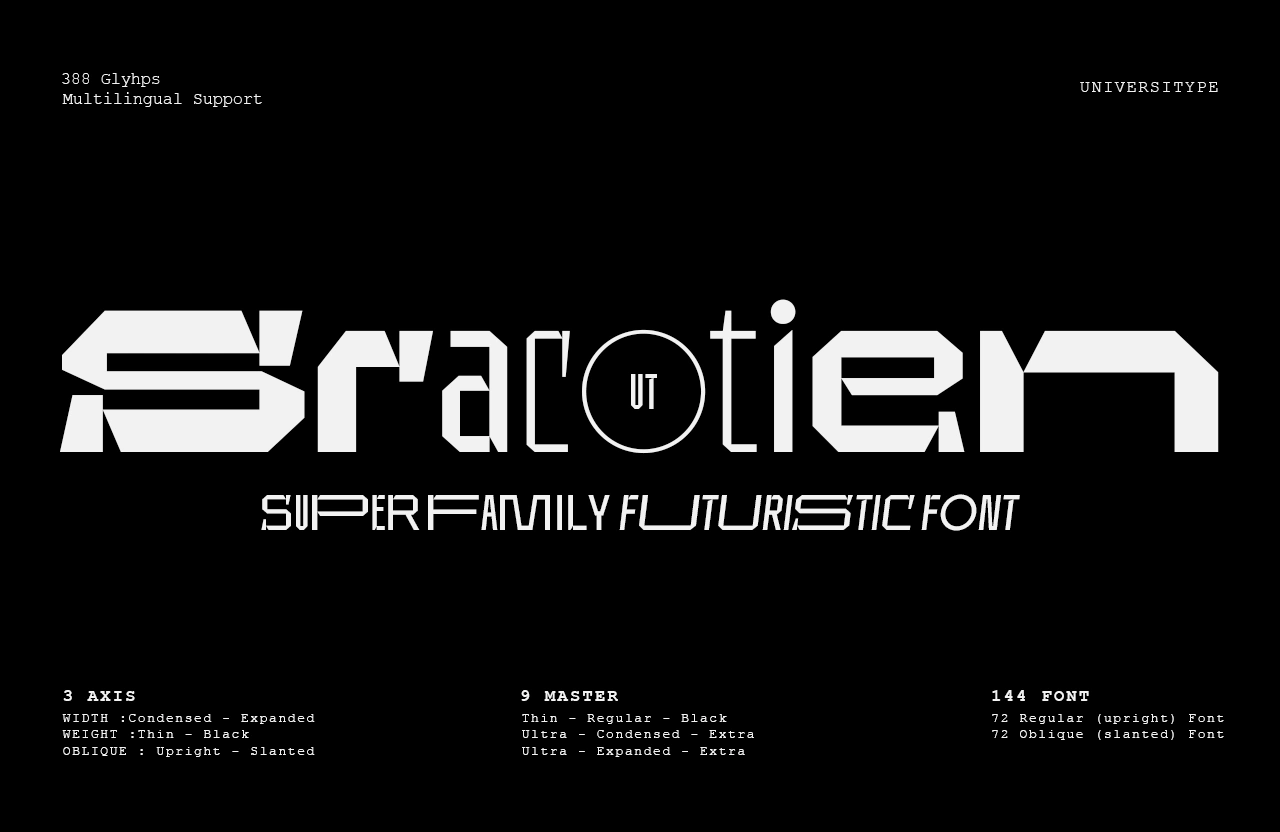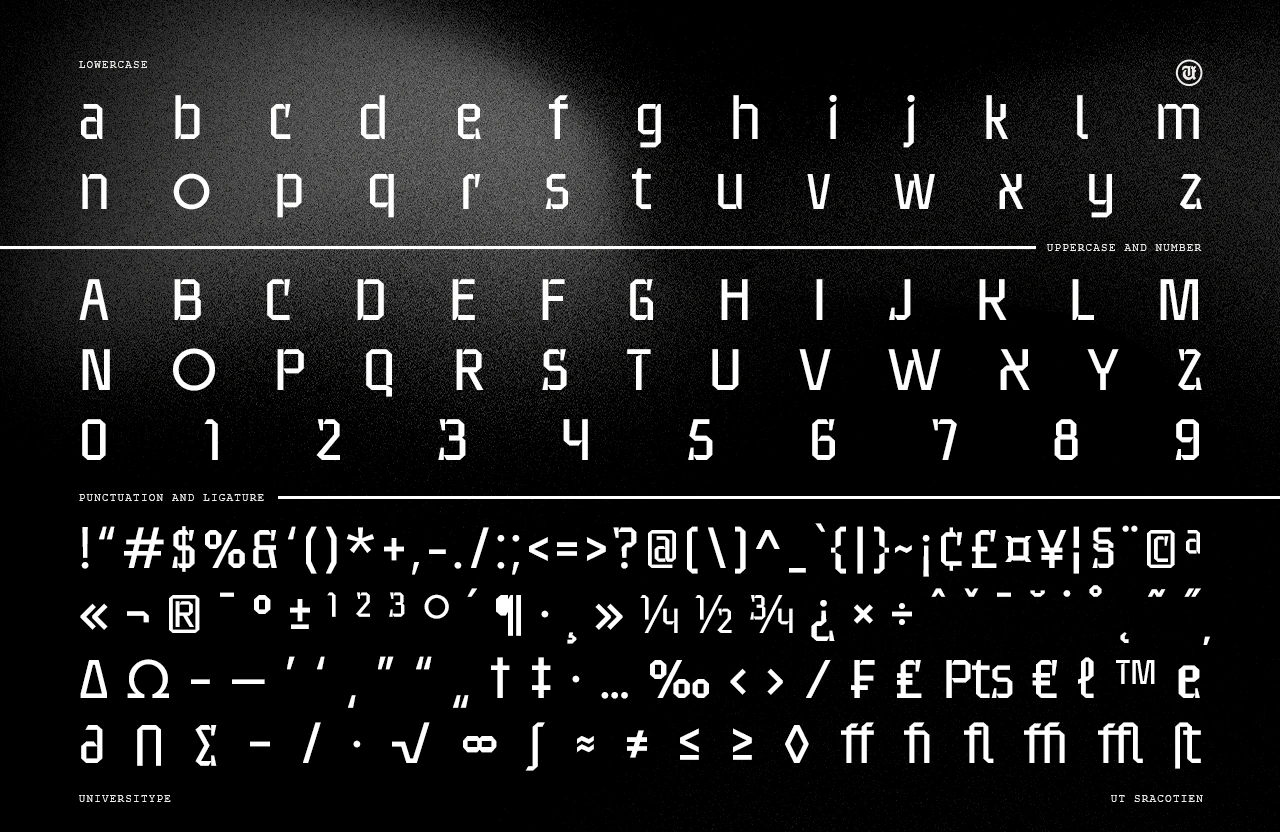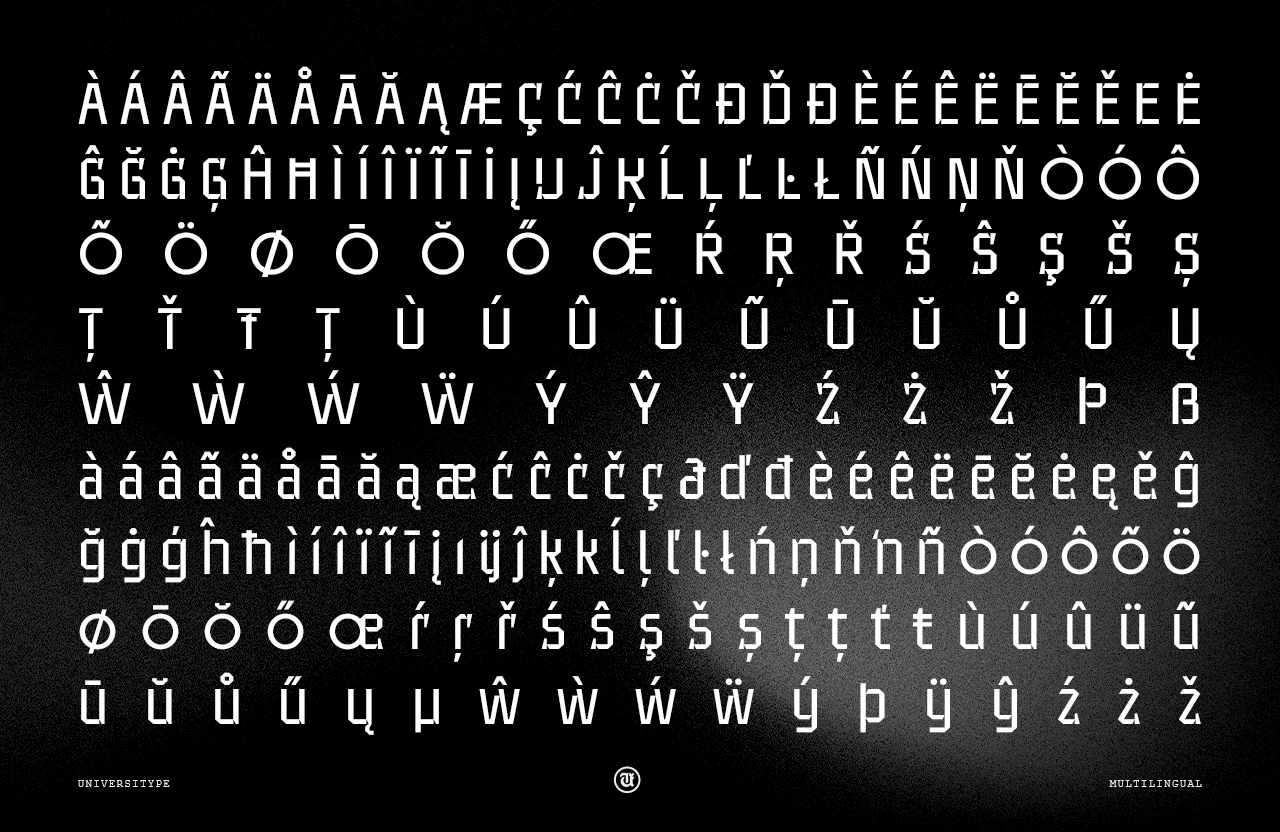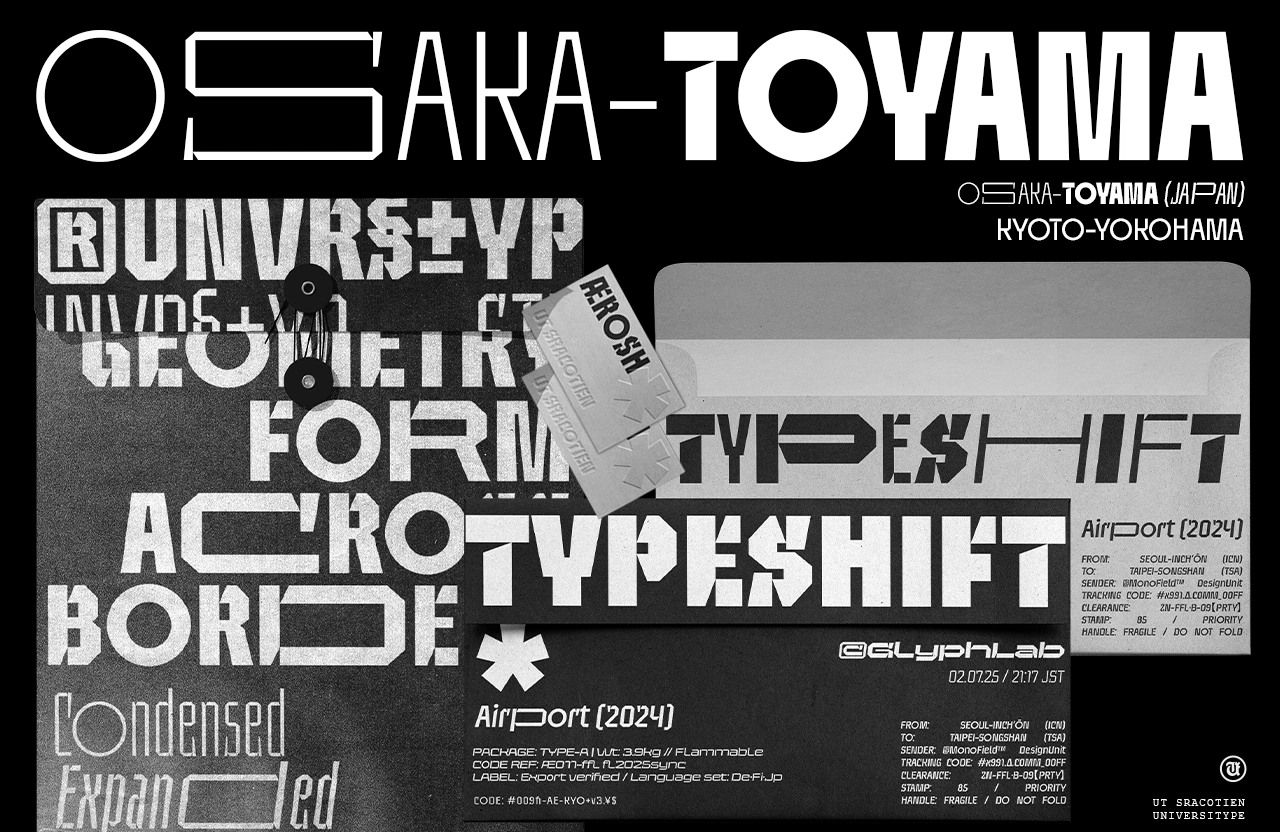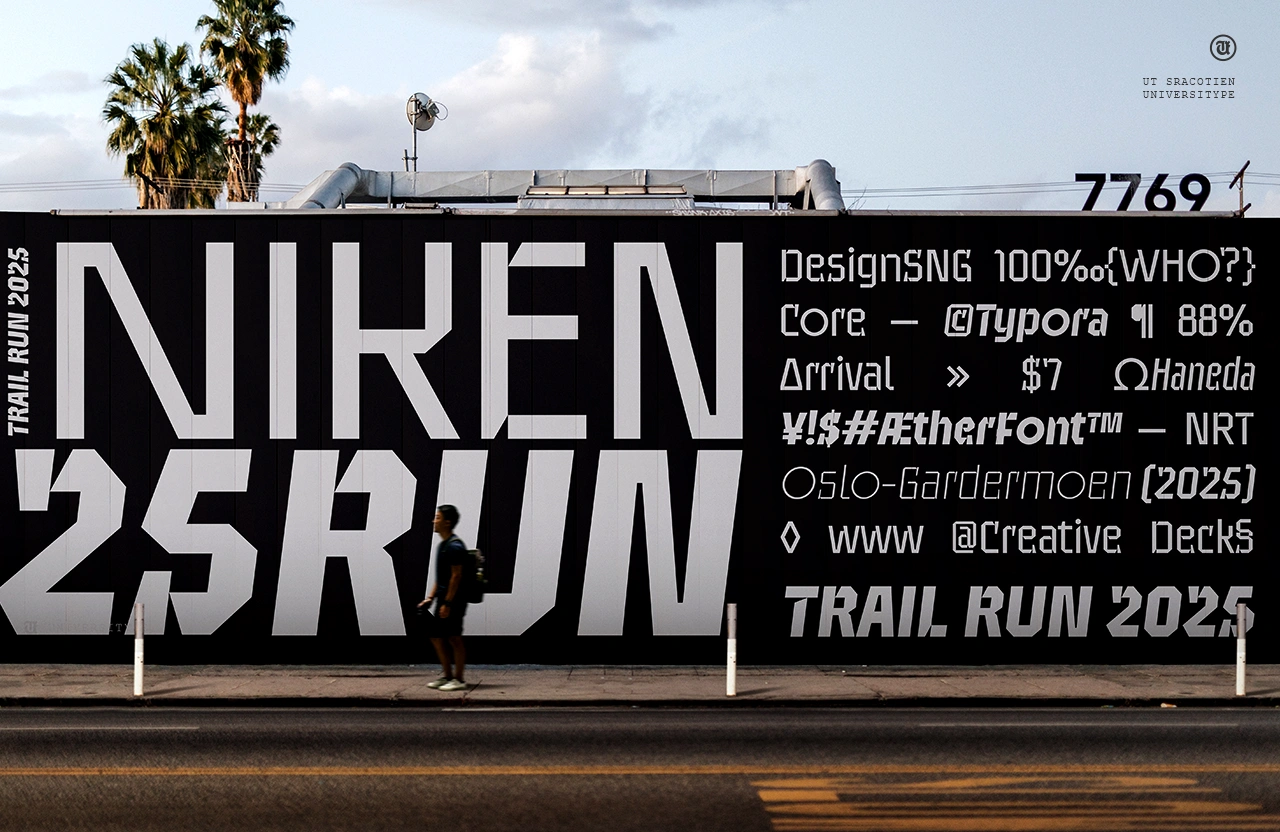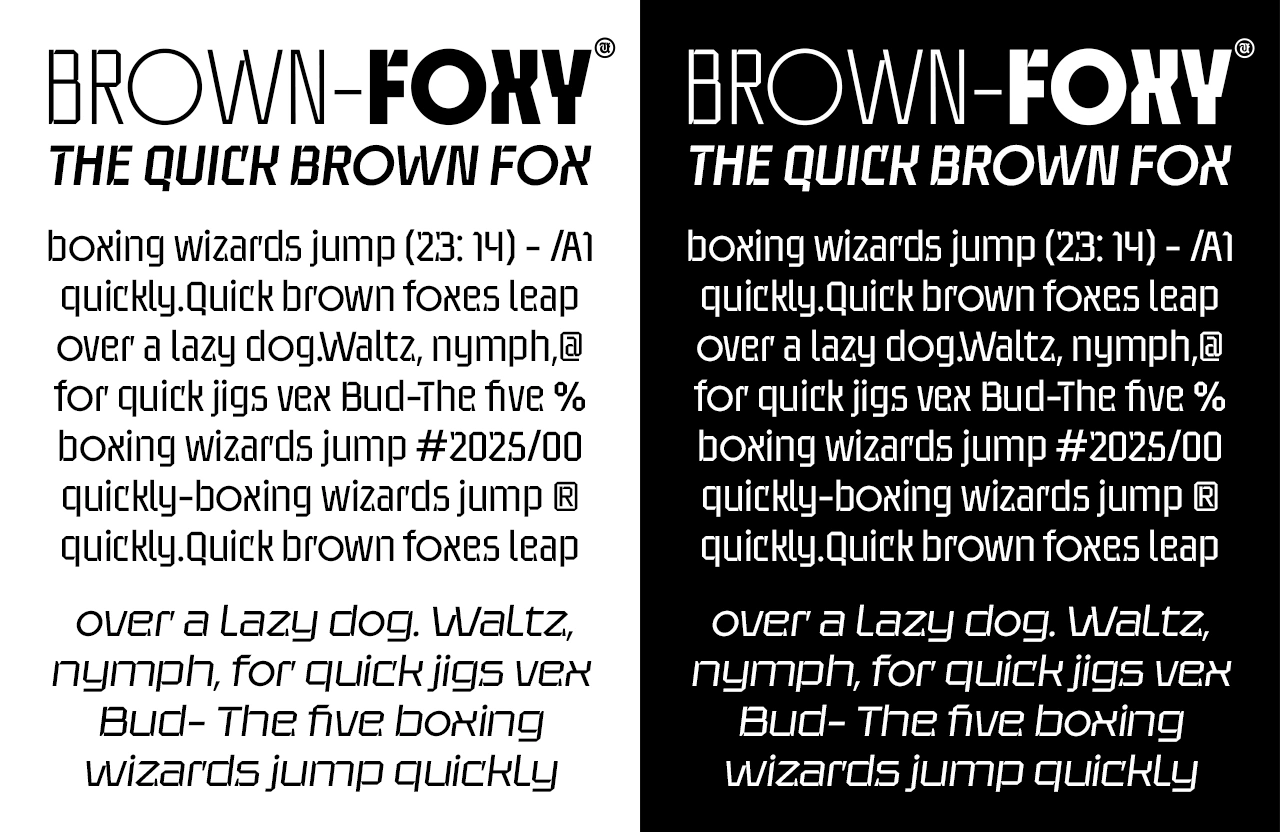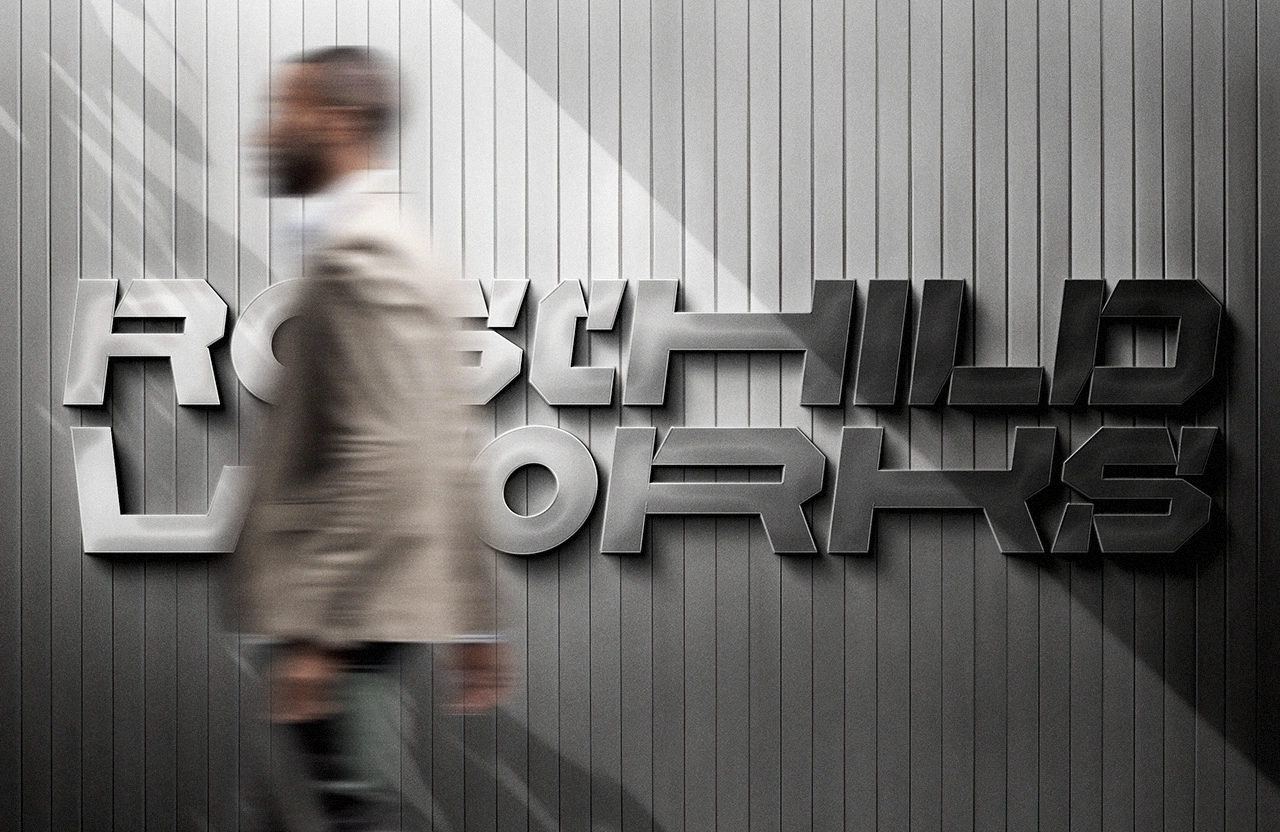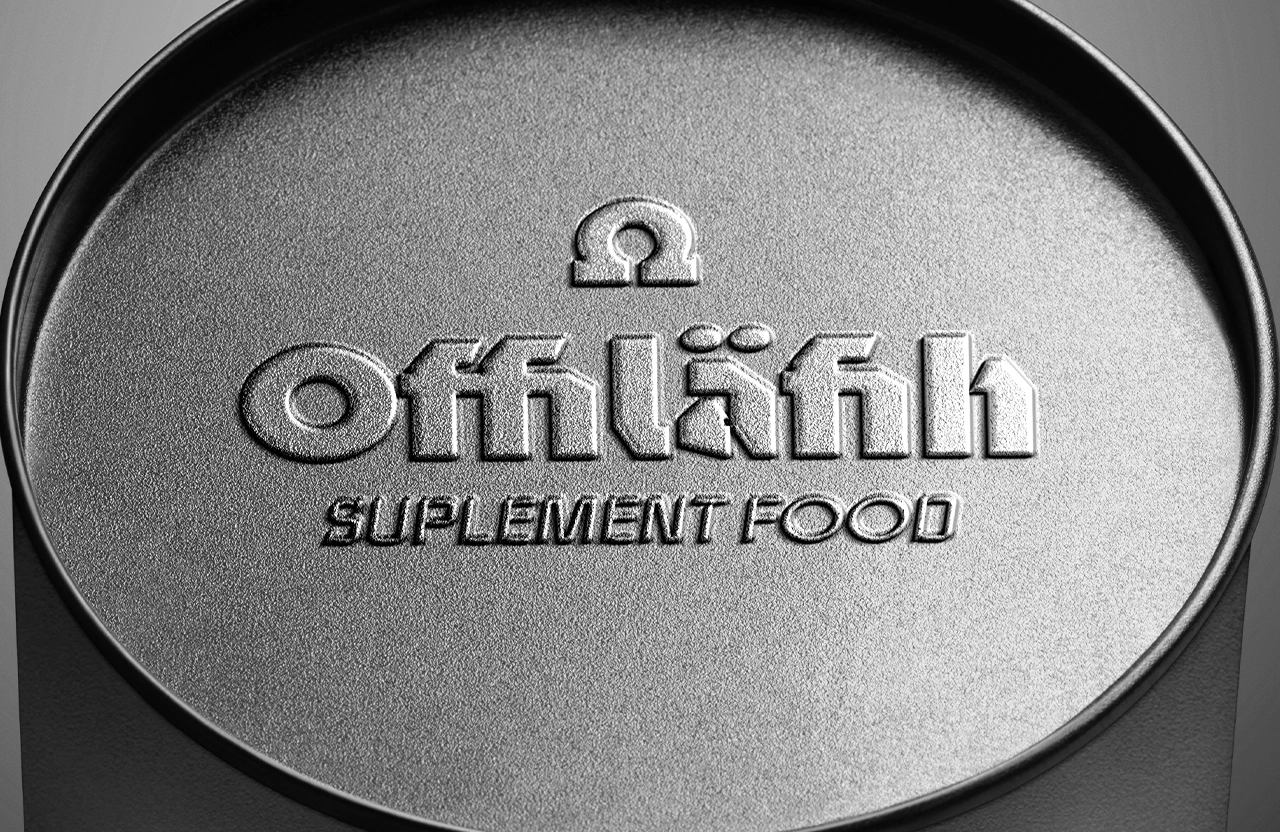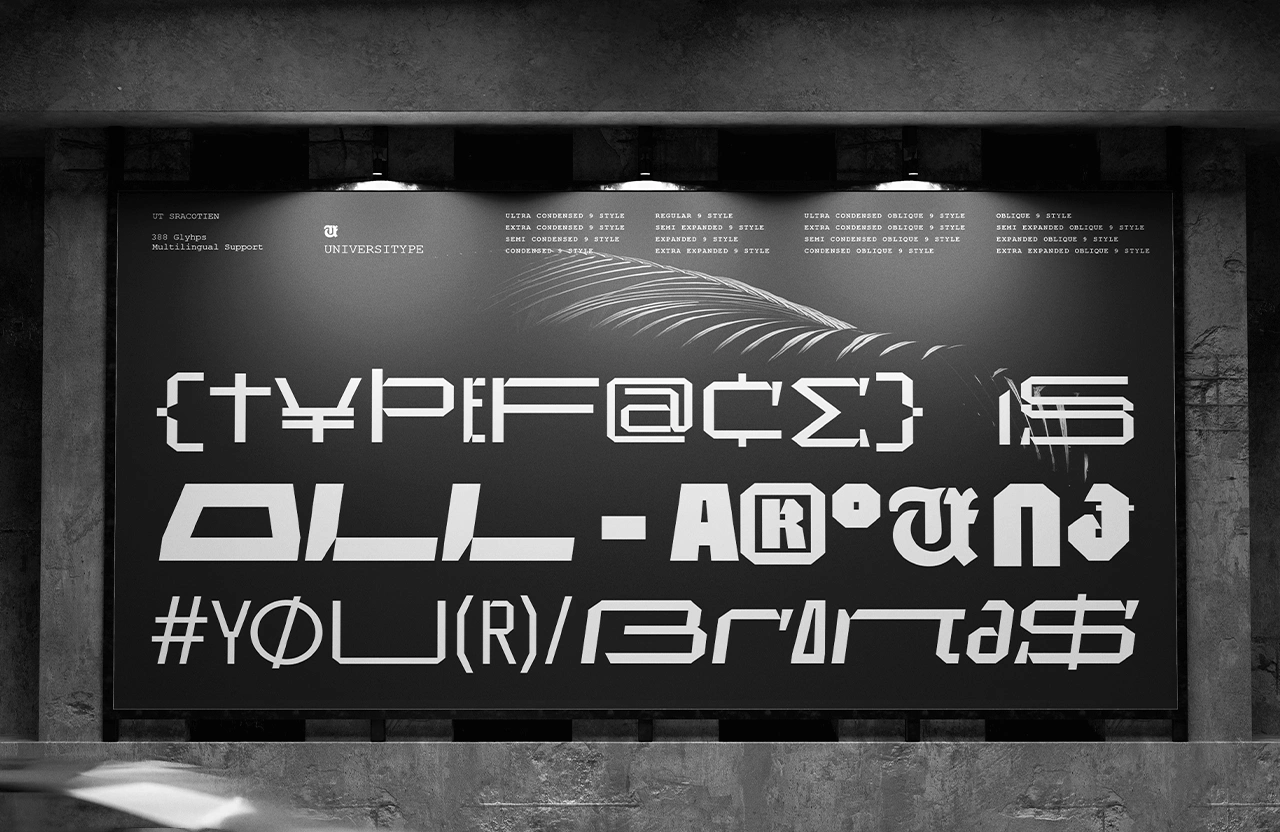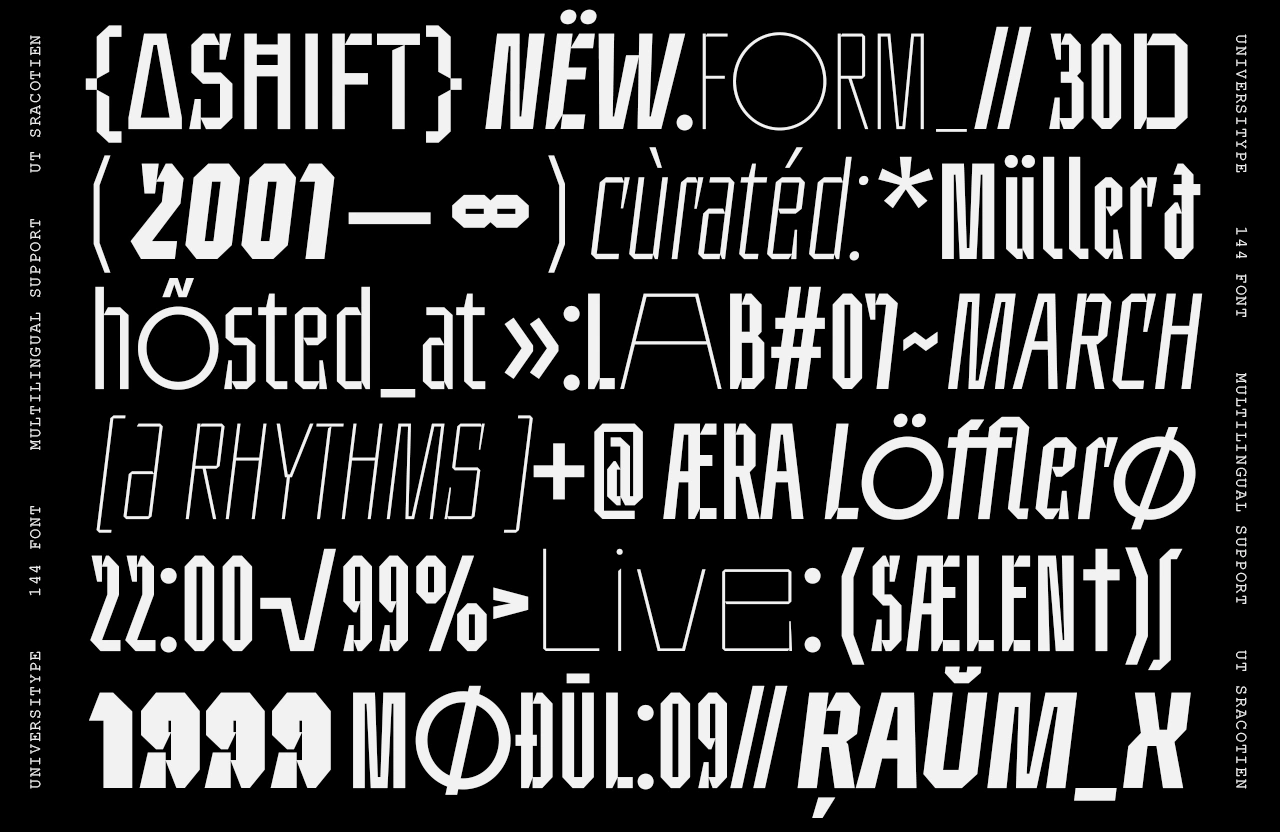
UT Sracotien
UT Sracotien is a versatile and modern superfamily font designed for contemporary digital and print applications. This font family offers a unique blend of futuristic and geometric aesthetics, making it an ideal choice for a wide range of creative projects. With its robust character set and extensive style options, UT Sracotien is perfect for designers looking for a font that can adapt to various design needs while maintaining a consistent and professional look.